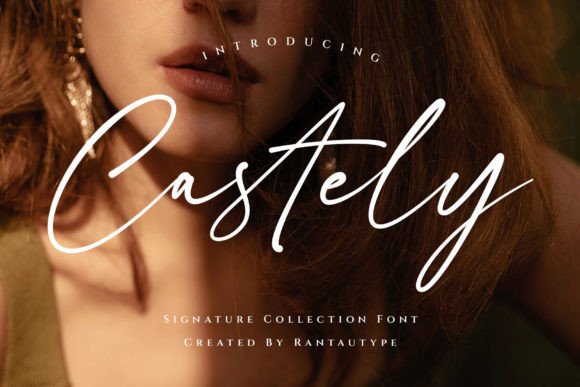
I still remember the frustration of working on a project, hours spent crafting the perfect design, only to be held back by one thing: the font. My client wanted something professional, yet stylish; modern, yet elegant. I scoured the internet, tried countless fonts, but none seemed to fit the bill. That was until I stumbled upon Castely, a business signature font that has since become a staple in my design toolkit.
A First Impression: Castely Font Review
Castely is a masterclass in balancing professionalism with style. Its soft curves and modern aesthetic make it perfect for designers, crafters, and creative hobbyists looking to elevate their work.
- ✨ Modern and minimalist design: Castely’s clean lines and simple shapes make it perfect for contemporary designs.
- ✅ Elegant and stylish: The font’s soft curves add a touch of sophistication to any project.
- 📚 Multilingual support: Castely supports a wide range of languages, making it a great choice for global brands.
- 🔍 Ligature and alternate support: The font’s OpenType features allow for creative experimentation and customization.
- 🤔 Occasional kerning issues: As with any font, some manual kerning may be required for optimal results.
- ⚠️ Limited use in very small sizes: Castely’s elegant lines may become lost in very small font sizes.
The Story Behind Castely
Castely was designed with the modern business in mind. Its creator, a seasoned typographer, aimed to craft a font that was both professional and stylish. Inspired by classic business fonts, Castely brings a fresh perspective to the world of business typography.
| What is Castely’s primary use case? | Castely is designed for business and professional use, making it perfect for logos, branding, and marketing materials. |
| Is Castely suitable for body text? | While Castely is elegant and stylish, it’s best used for headlines and titles. For body text, consider a more traditional font. |
| Does Castely support non-English languages? | Yes, Castely supports a wide range of languages, including multilingual characters and glyphs. |